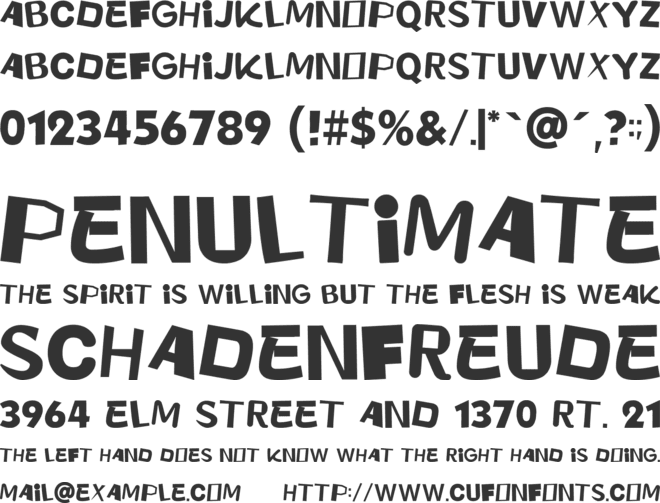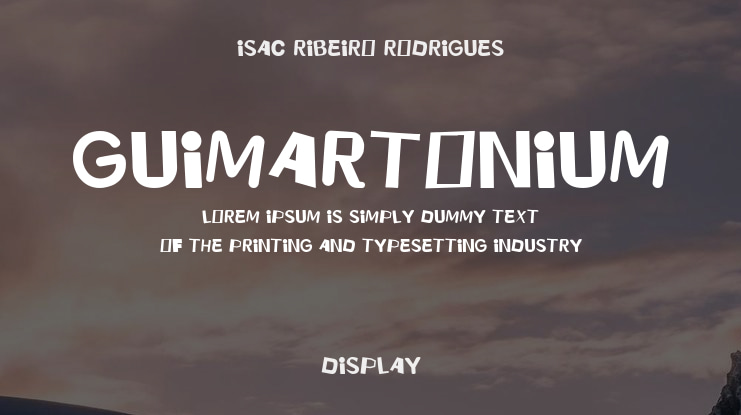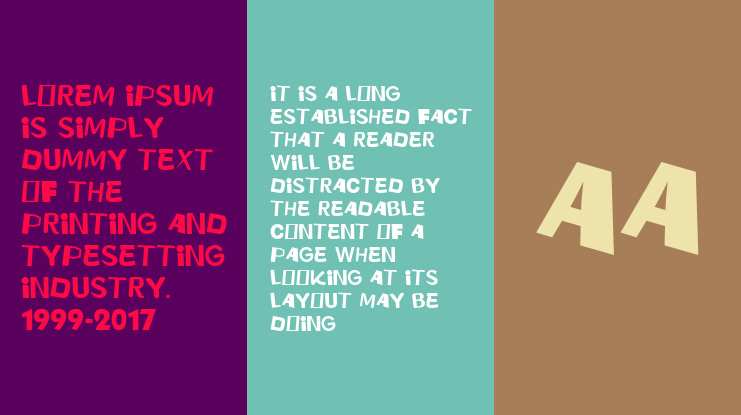
Guimartonium Font
Isac Ribeiro Rodrigues
Guimartonium is a similar GDF font to Corusmania. Because I created my account on Cufon Fonts and added the font I made over here. Seen on GDF Productions logo and some wacky adventure animations to use for free to download anyway. For that way, they could download for a shortened Bitly link for them to copy and paste it on their web address on my YouTube channel. And even social medias they use for availability for nowadays using GDF episodes with DeveroToons (Non-Mii YouTube channel), SpadeCityQueen (Ritoleah River, Mii YouTube channel) and Miitonio (Antonio Vidro, Mii YouTube channel) to use their own custom logo from Corusmania and Guimartonium to use their similar letters of the old Corus logo to use it for instance now. :3
Guimartonium™ is a free, installable font that is being similar to Corusmania™ font from Cufon Fonts they had to download for the old Corus font.